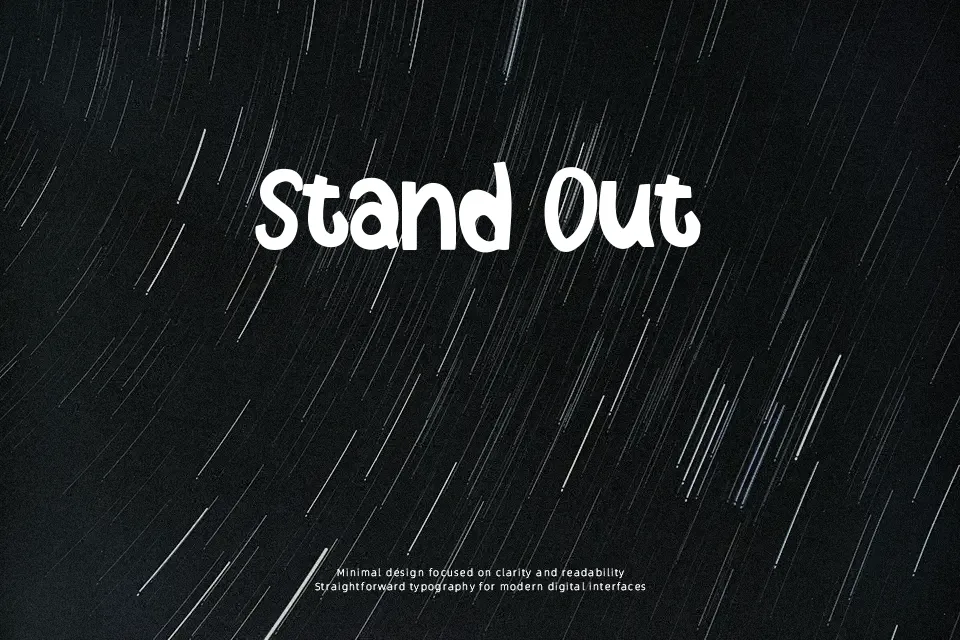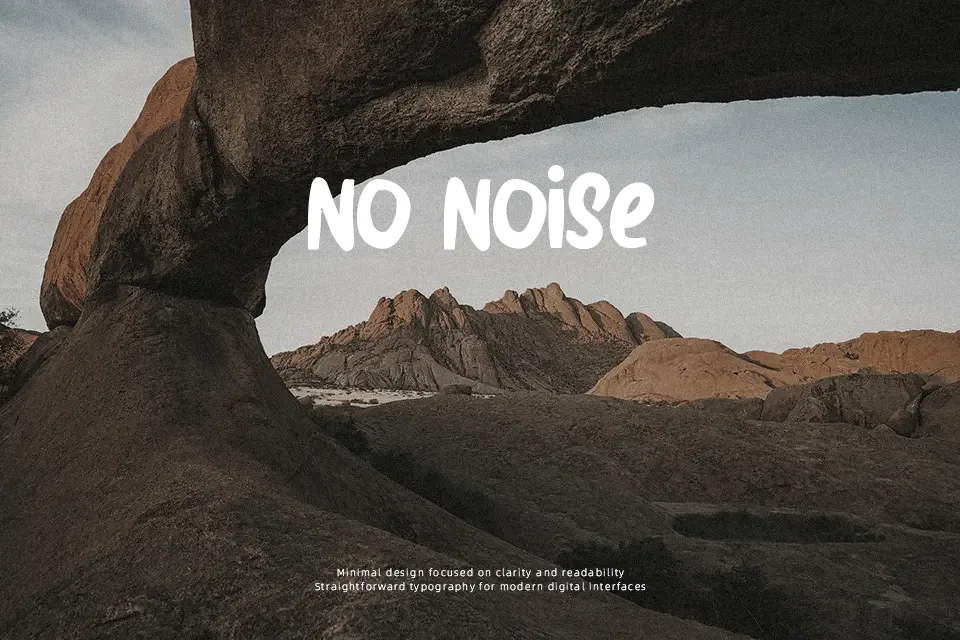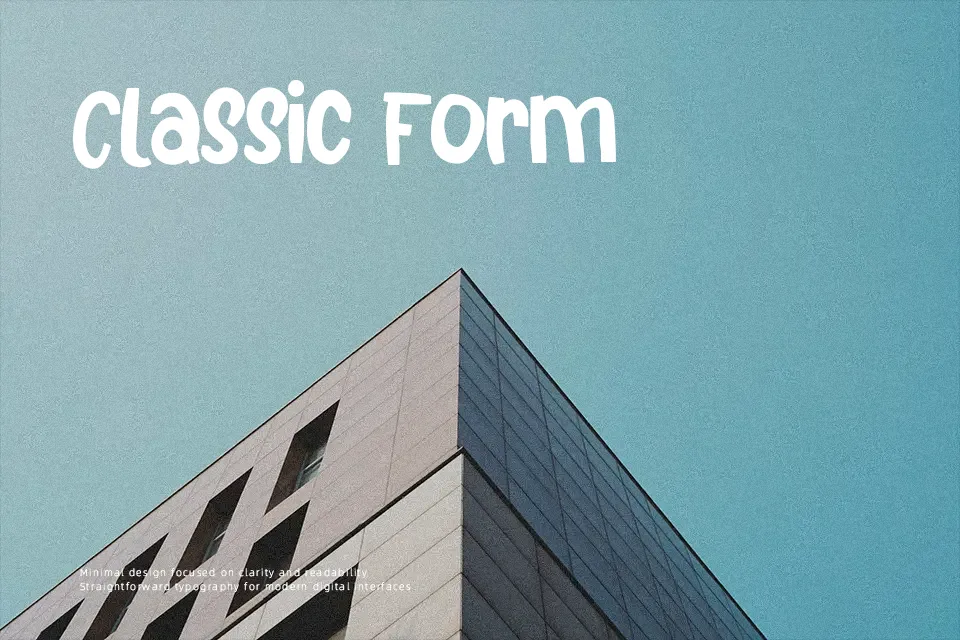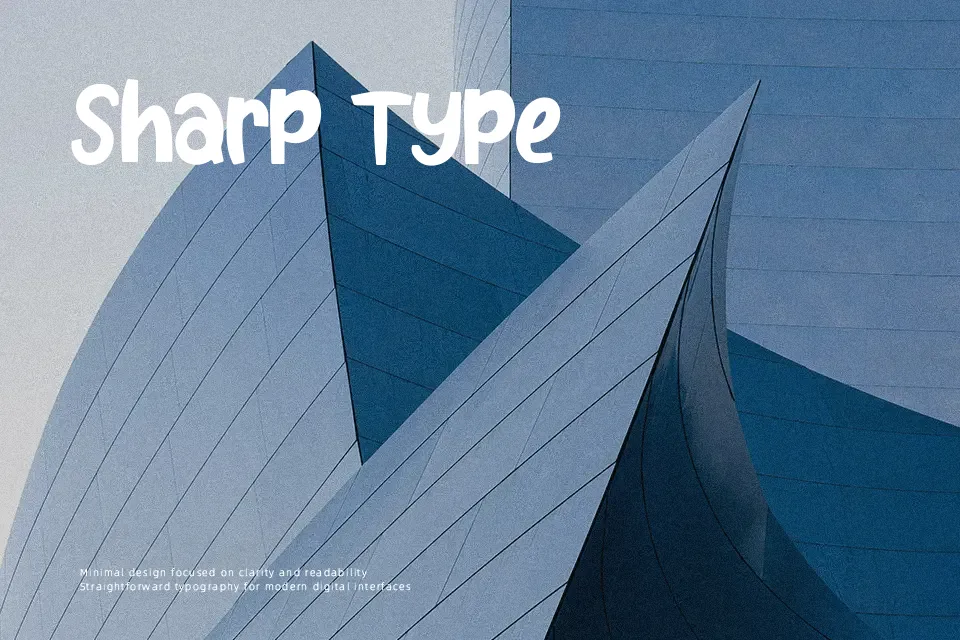
Sharkido Font
Sharkido Font is a hand-drawn brush typeface featuring thick, animated stroke weights and slightly irregular letter proportions that create a buoyant rhythm. The design maintains relatively tight kerning and rounded contour terminals, preserving character distinctiveness across prominent display headers and product packaging layouts. In short promotional titles and graphic apparel prints, the letterforms deliver immediate clarity and an approachable tone. However, the heavy weight and textured fluidity reduce comfort during continuous reading across dense editorial settings. The robust strokes help maintain strong silhouette definition at large sizes, though smaller caption text tends to lose interior counter spaces rapidly.
Best For: children book covers, animated video titles, casual merchandise packaging, board game branding
Not Ideal For: dense book paragraphs, financial spreadsheets, mobile app body text, corporate legal documents
Perfect for headline, kids, and logo, with a bold and brush style.